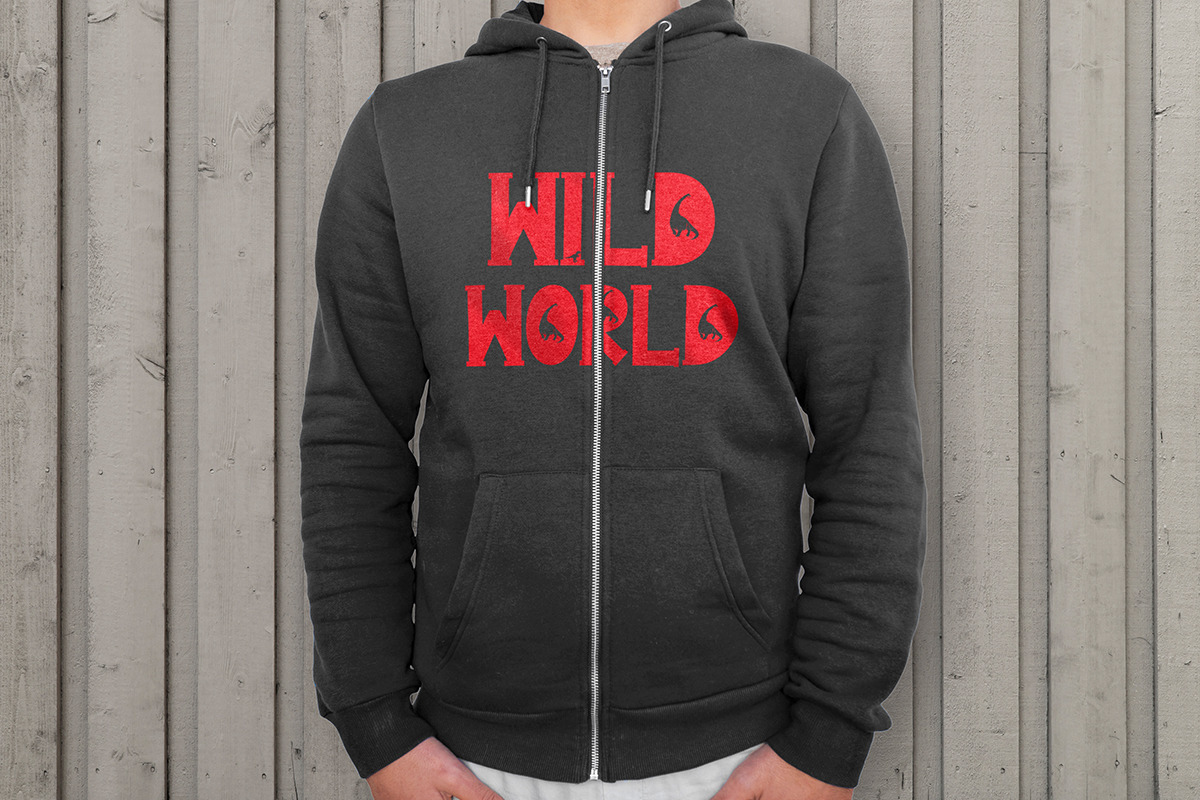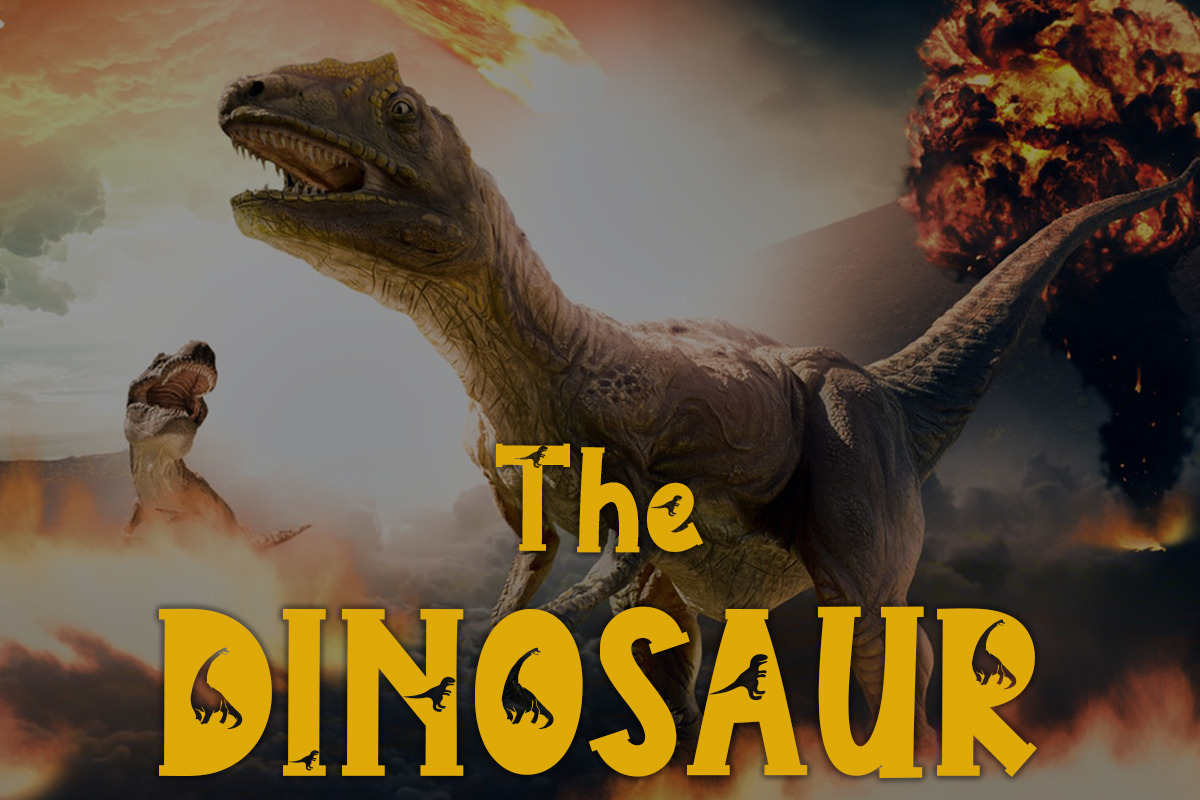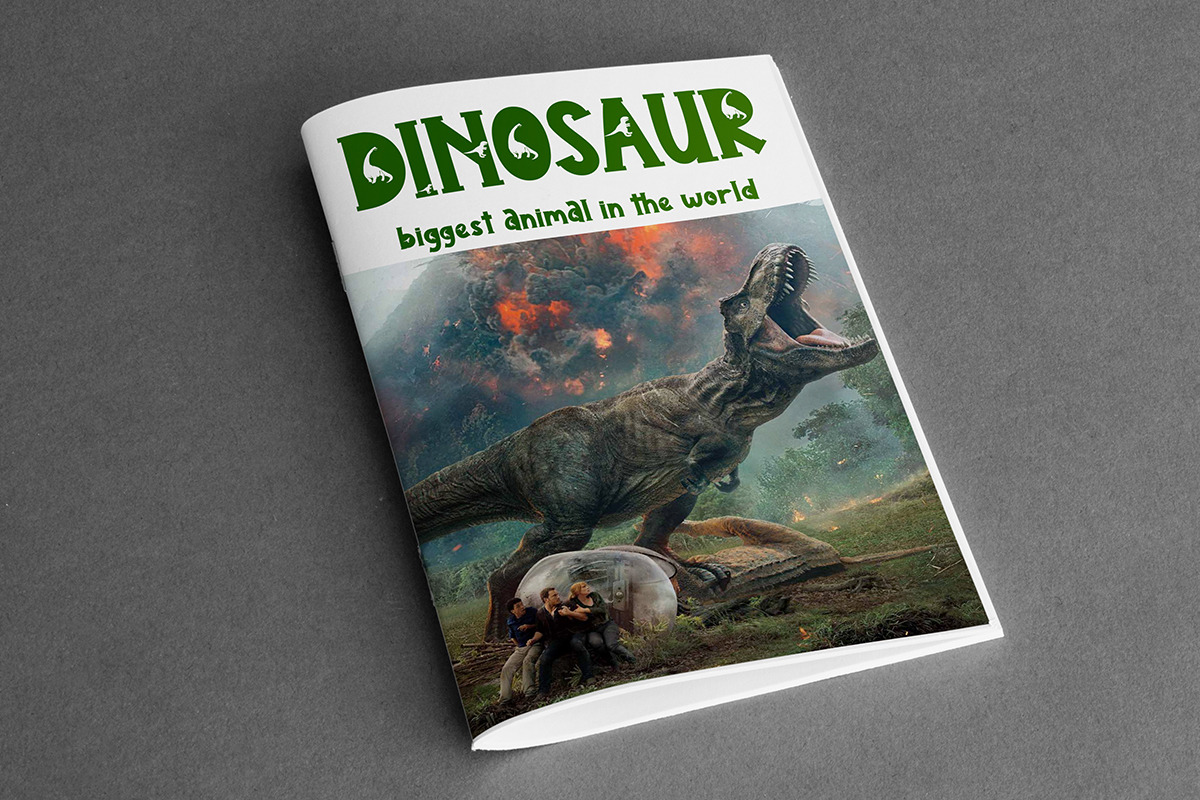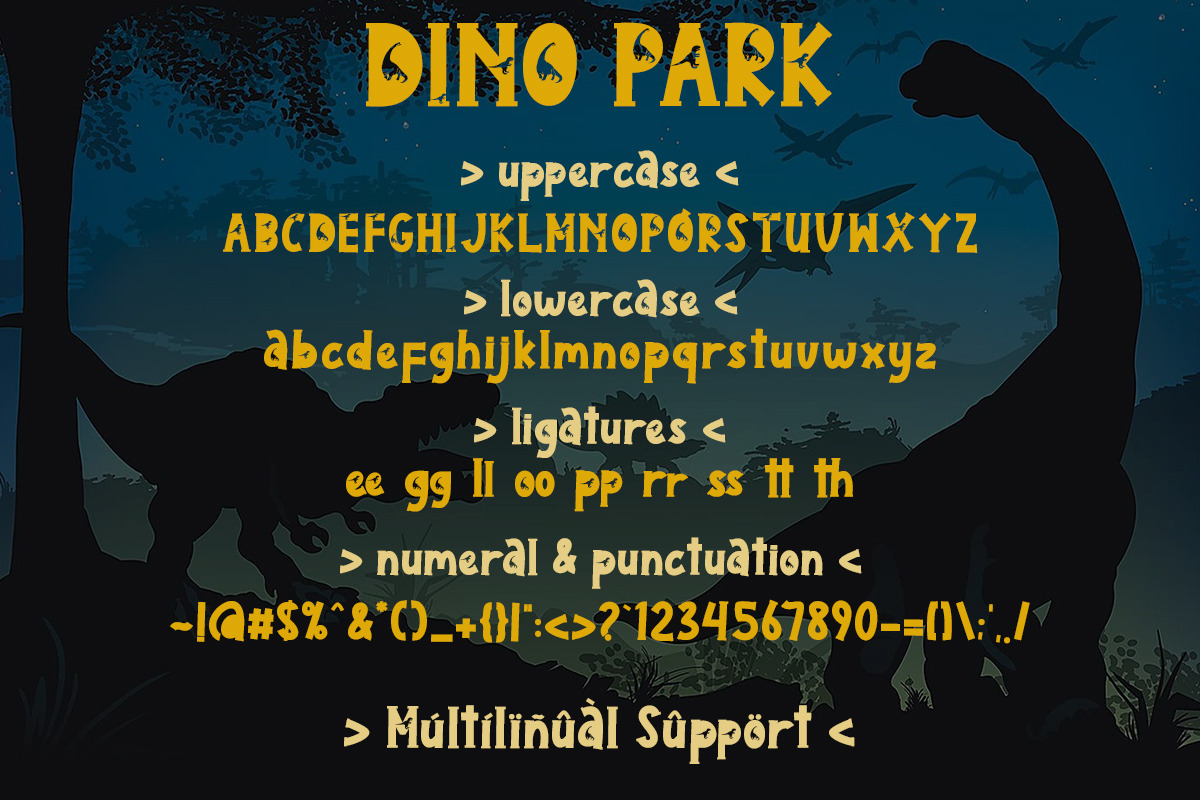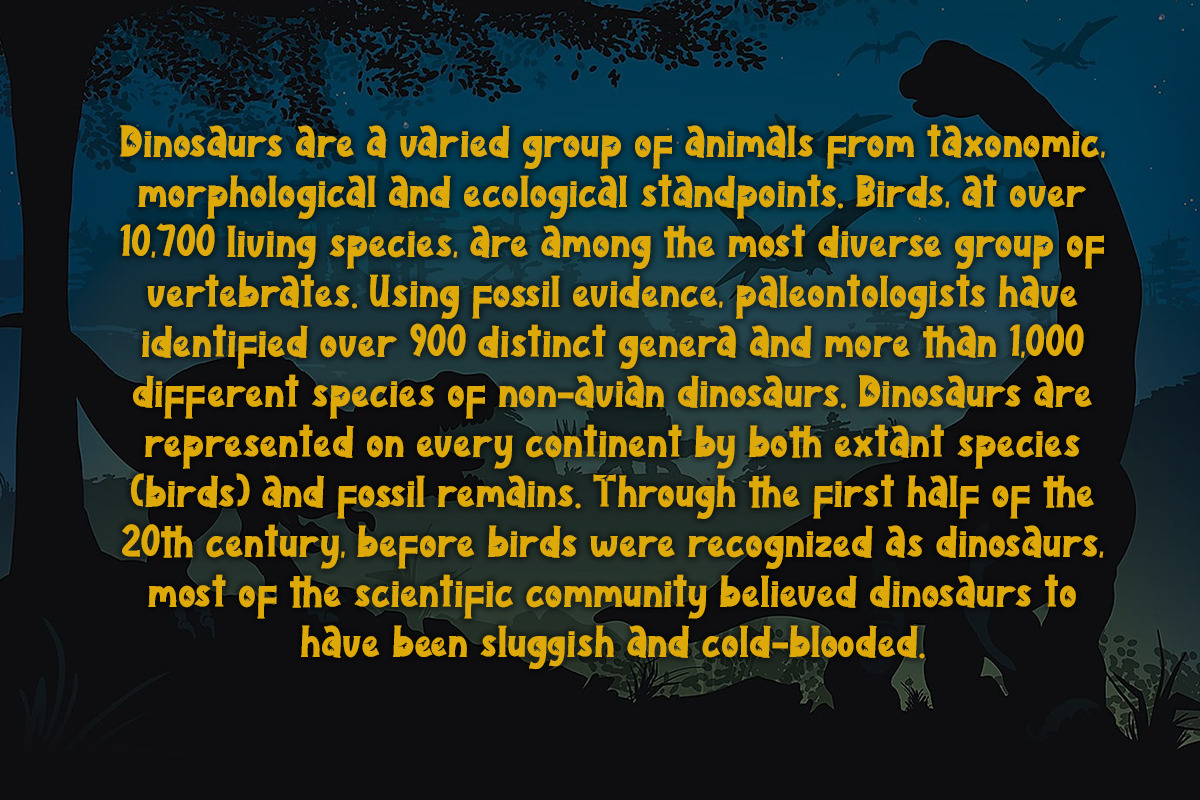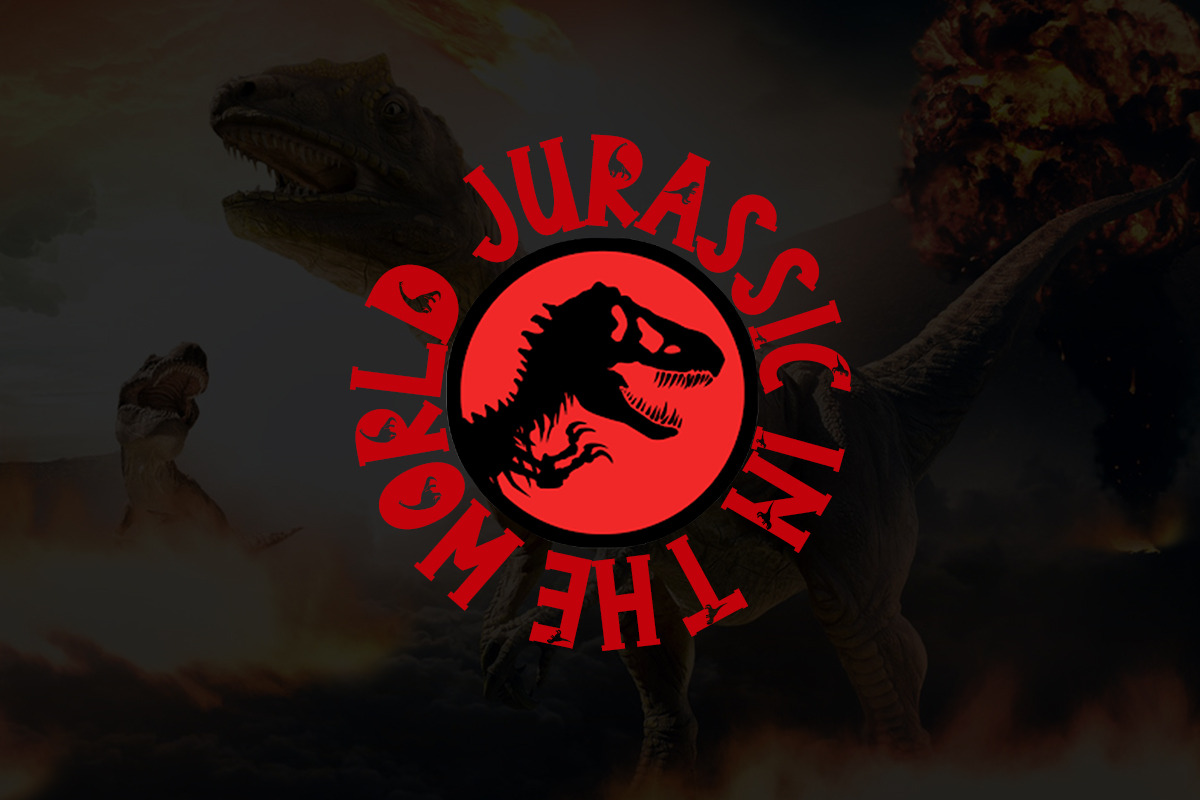
Dino Park
"Dino Park" is the most amazing font I've ever made. This font was carefully crafted by incorporating dinosaur into its writing. Very suitable for your projects. This font is also very easy to apply because it has been specially designed. You can create movie titles, book titles, magazine covers, animals, design logos, t-shirt logos, quotes, traveling, research, and more.